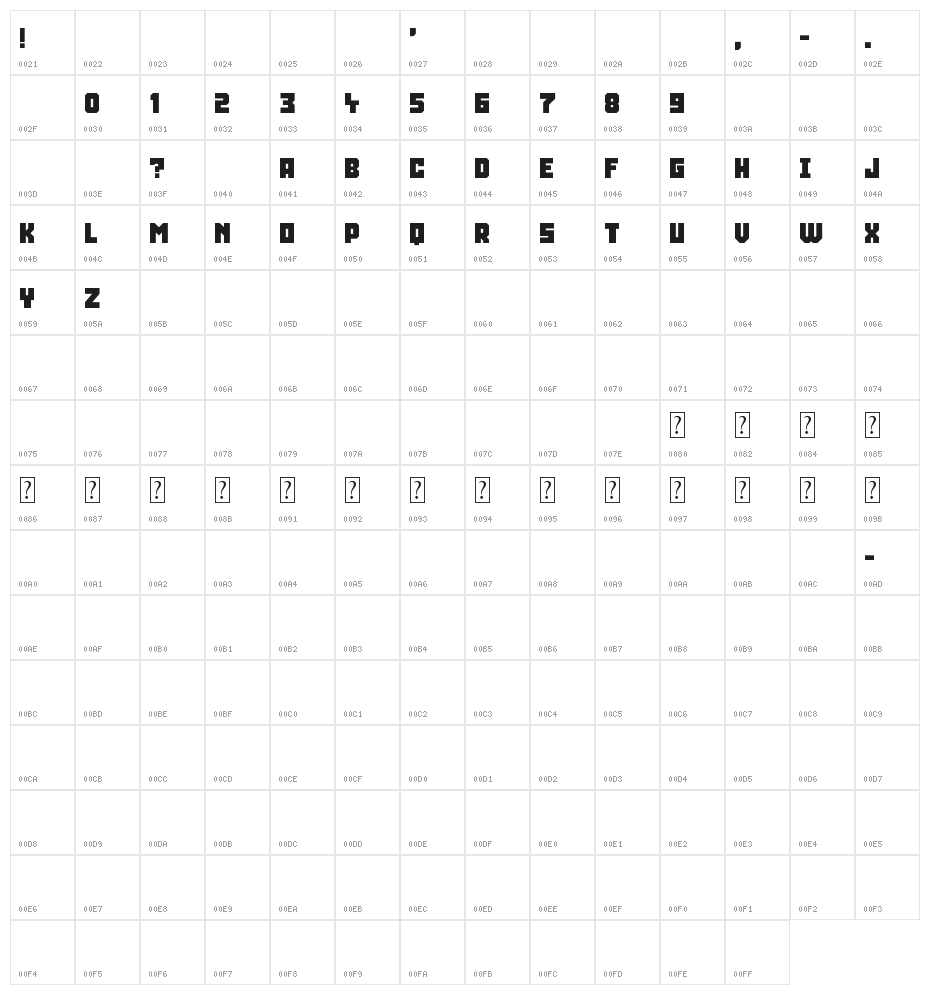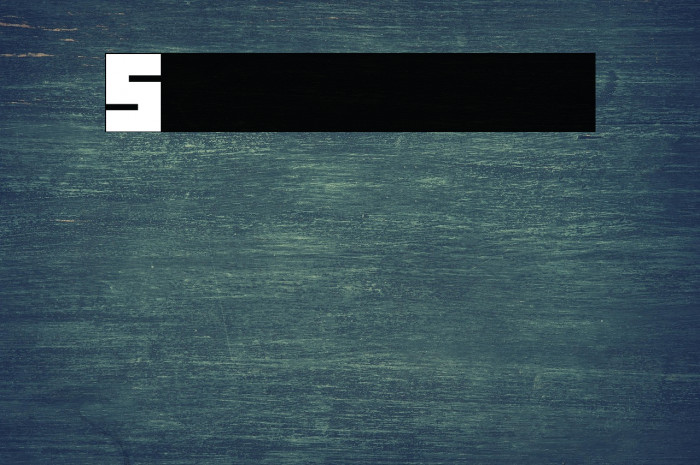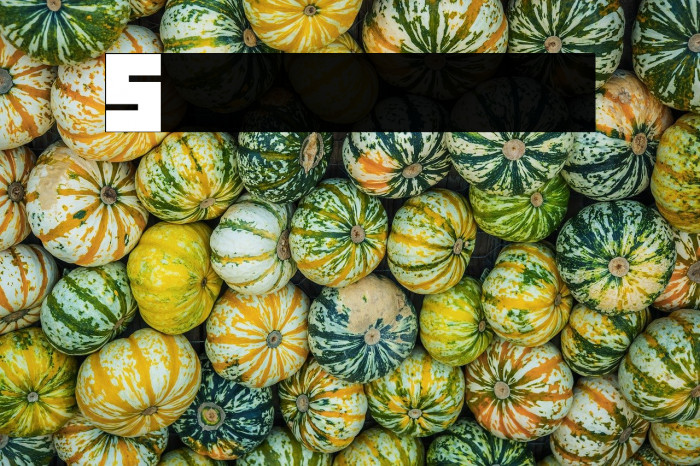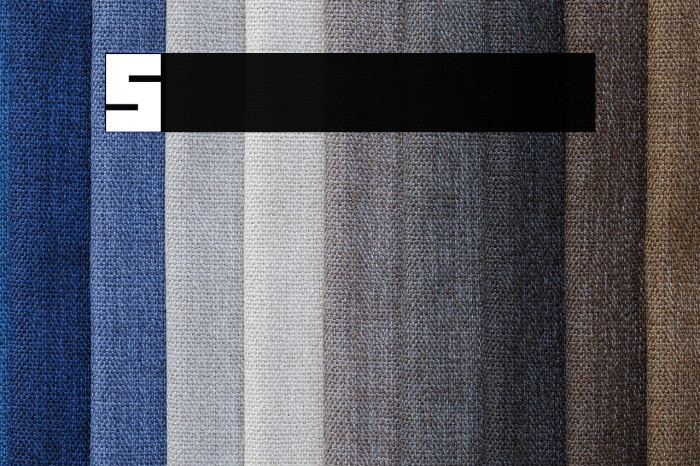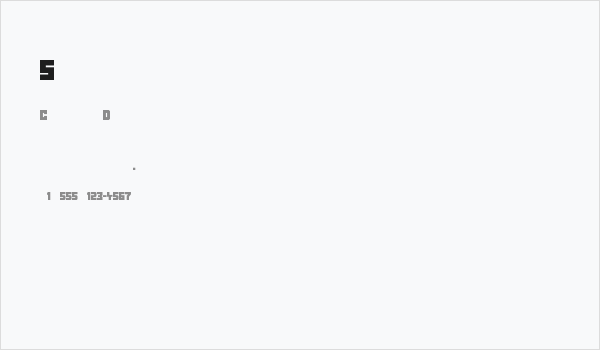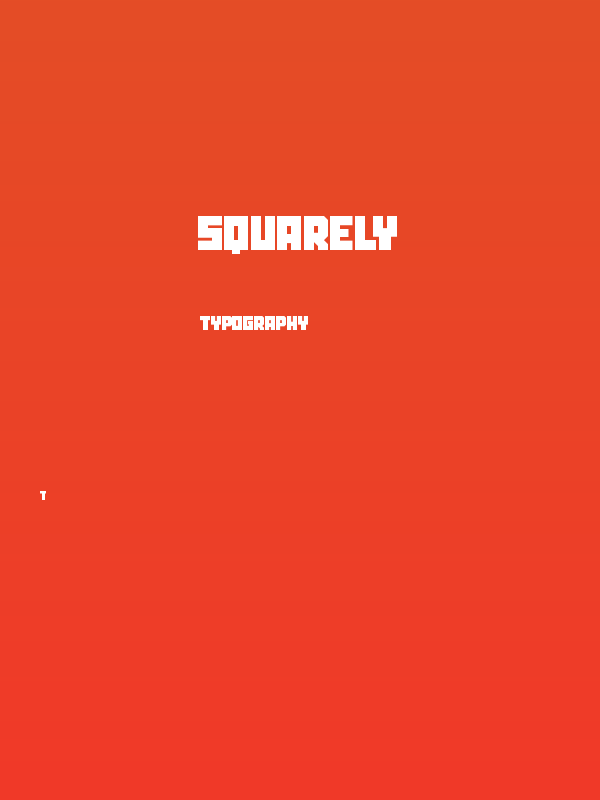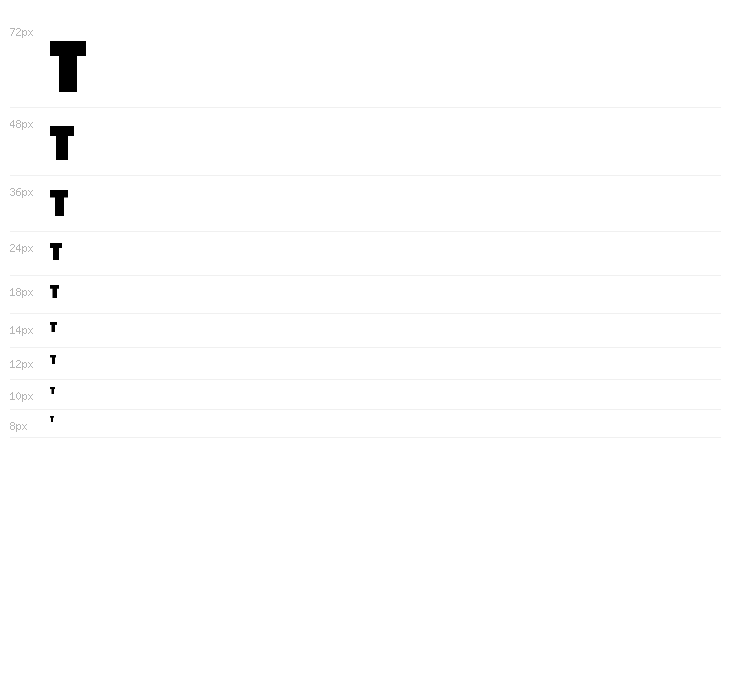
Squarely Font
Squarely Description
This font features a bold, geometric design with a distinctly square and blocky appearance. Each character is crafted with sharp angles and straight lines, creating a uniform and cohesive look. The uppercase letters are particularly striking, with a strong presence that commands attention. The numerals and special characters maintain the same boldness and geometric style, ensuring consistency across all text. This font's unique design makes it ideal for projects that require a modern and impactful aesthetic.